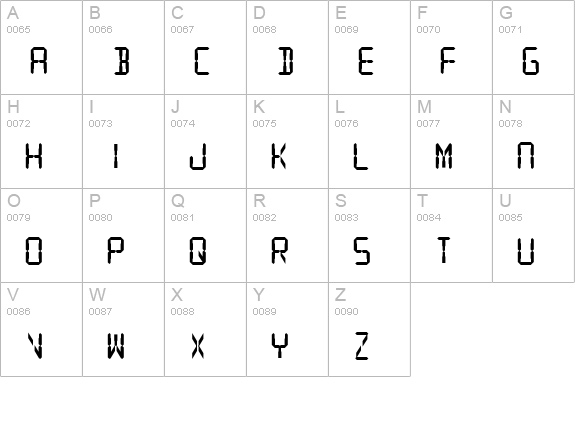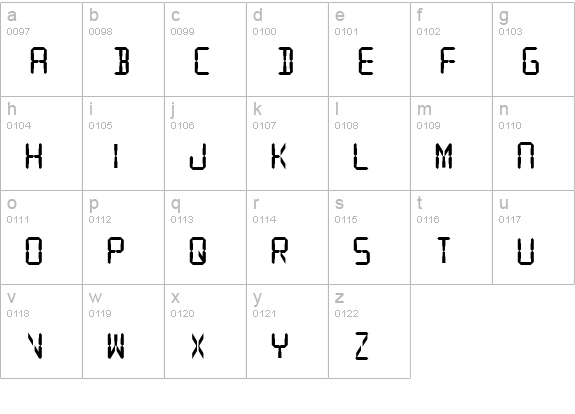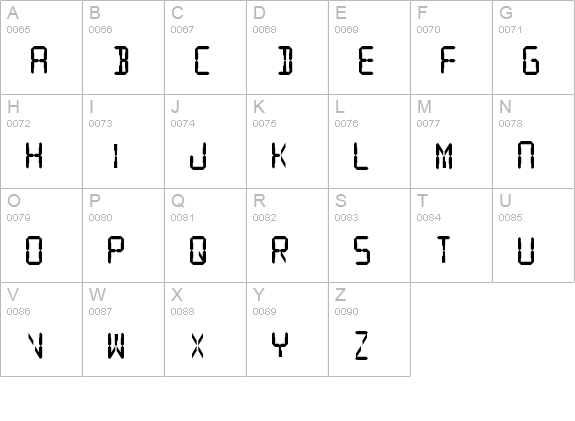
Digital Readout Thick Upright Font Details
Introducing Digital Readout Thick Upright font, a sleek and modern typeface perfect for adding a futuristic touch to your design projects. This eye-catching font features bold, thick lines that make a strong statement on any creative layout. Ideal for headlines, posters, logos, and more, Digital Readout Thick Upright font exudes a sense of confidence and innovation. The best part? This versatile font is available for free download at FontsMarket.com. Don't miss out on the opportunity to elevate your designs with this striking typeface that is sure to captivate your audience. Upgrade your creative arsenal today with Digital Readout Thick Upright font and make your projects stand out from the rest.